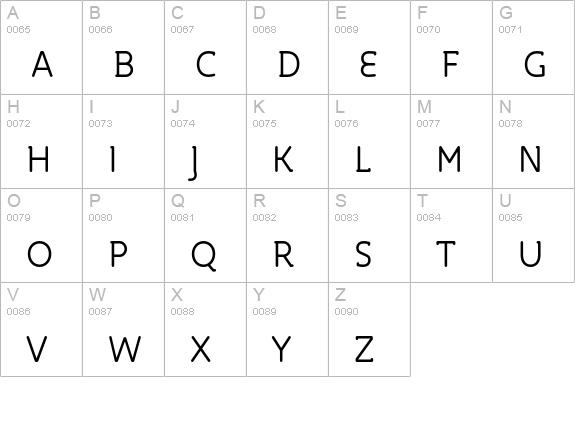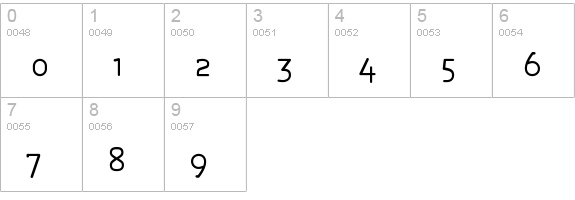
Roice-Regular Font Details
Roice-Regular is the standard, neutral variant in the Roice typeface family \xE2\x80\x94 well suited to general body text, paragraphs, and standard typographic work.
Roice-Regular is a versatile and modern font that effortlessly combines elegance with readability. Its clean lines and balanced proportions make it suitable for a wide range of design projects, from branding to editorial layouts. The gentle curves and subtle details of Roice-Regular add a touch of sophistication to any text, while maintaining a sense of approachability. This font is available for free download at FontsMarket.com, allowing designers and creatives to access its full potential without any cost. With Roice-Regular, you can elevate your designs and create polished and professional-looking content effortlessly. Whether you're working on a logo, website design, or print materials, this font will bring a touch of class to your projects. So don't hesitate to try out Roice-Regular for your next design endeavor and see the difference it can make!